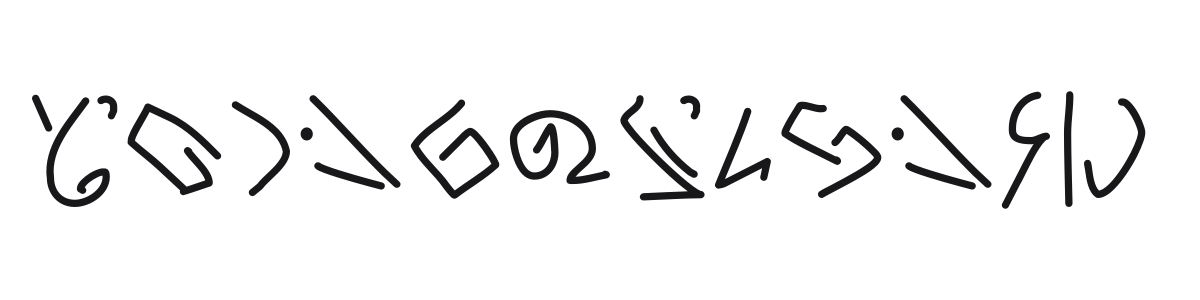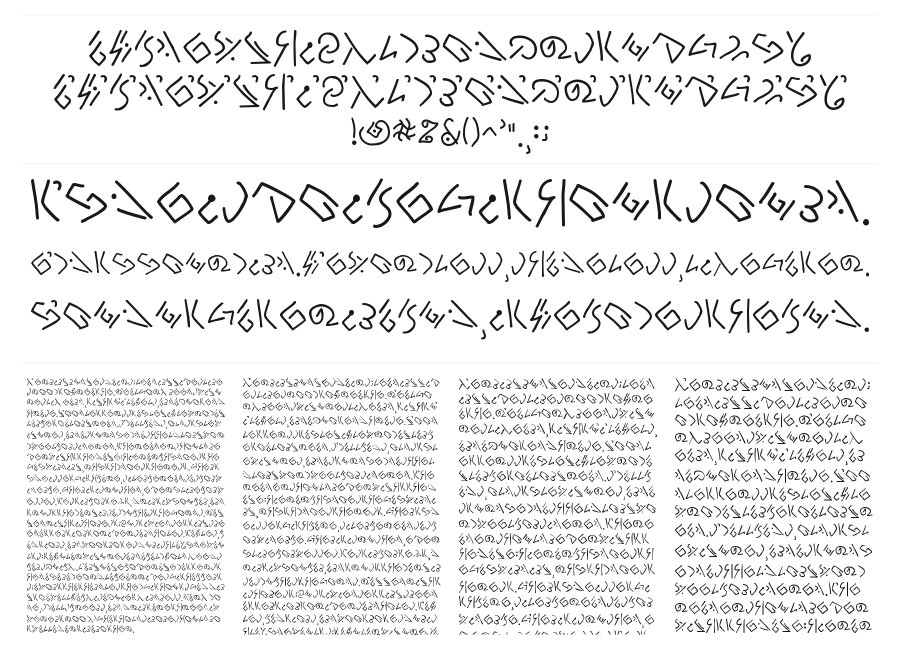
Zomper Glyphs
by Crystal Creator
Zomper Glyphs is a constructed alien-script font made up of angular, thin-stroked symbols that resemble a fictional writing system. Each glyph is built from sharp angles, arcs, and minimal geometric forms, evoking extraterrestrial or runic origins. It suits sci-fi worldbuilding, game design, and any project that needs a language that feels genuinely otherworldly.